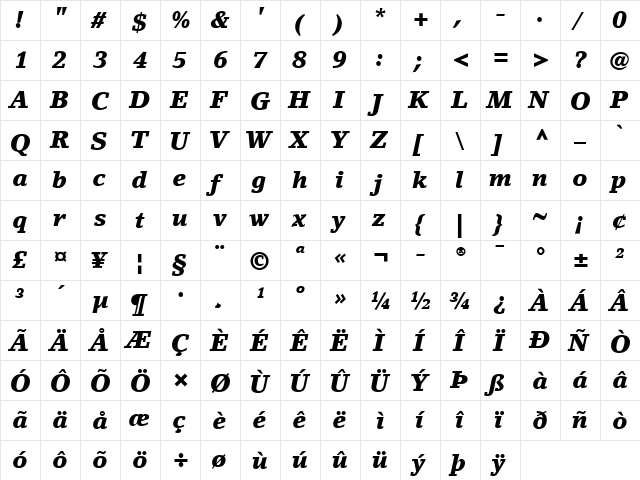
LinoLetter LT Medium Bold Italic
Design Context for LinoLetter LT Medium Typeface
LinoLetter LT Medium is a composed and adaptable typeface that performs quietly and consistently across a wide range of design contexts. Its italic angle brings a sense of urgency and motion to the letterforms. Its bold stroke weight gives it real presence on the page.
Pro Tip: Use LinoLetter LT Medium for emphasis, pull quotes, and subheadings where its slanted energy can add rhythm to the layout.